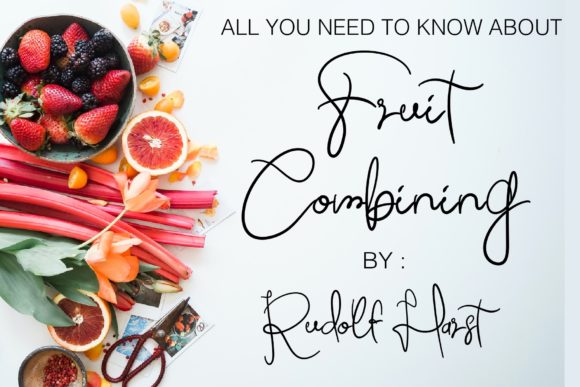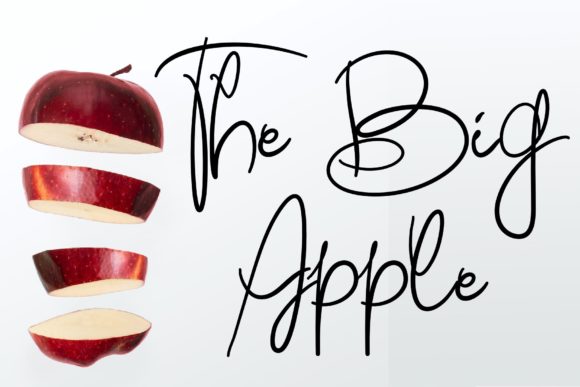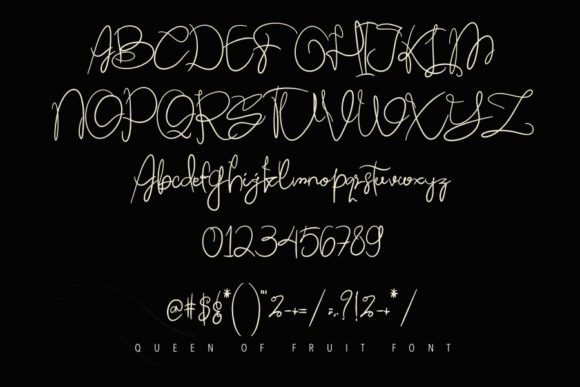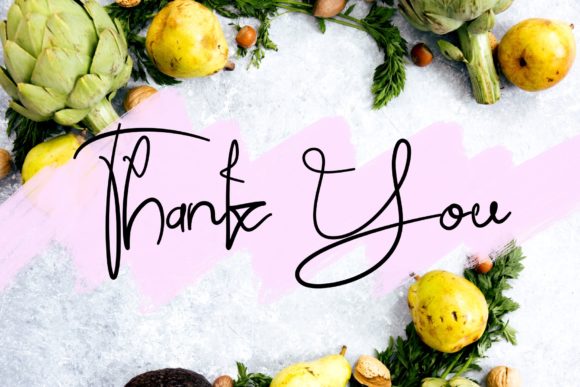
Introduction to Queen of Fruit Font Font
Fonts play a crucial role in design, and the Queen of Fruit Font font is a typeface that brings both character and versatility to any project. Whether you’re working on a branding project, a website, or a print design, the Queen of Fruit Font font offers a unique style that can elevate your work.
Queen Of Fruit is modern and elegant handwritten font carefully handcrafted to become a true favorite.
Fall in love with its incredibly distinct and timeless style and use it to create spectacular designs .
Key Features of Queen of Fruit Font Font
Why Choose Queen of Fruit Font Font?
The Queen of Fruit Font font is more than just a typeface – it’s a design tool that helps you communicate your message with style and clarity. Its unique character set and versatile design make it suitable for a wide range of applications, from elegant invitations to bold headlines.
With its carefully crafted letterforms and balanced proportions, the Queen of Fruit Font font ensures readability and visual appeal across all mediums.
What makes Queen of Fruit Font font special?
The Queen of Fruit Font font stands out with its unique design, exceptional readability, and versatility across various design applications.